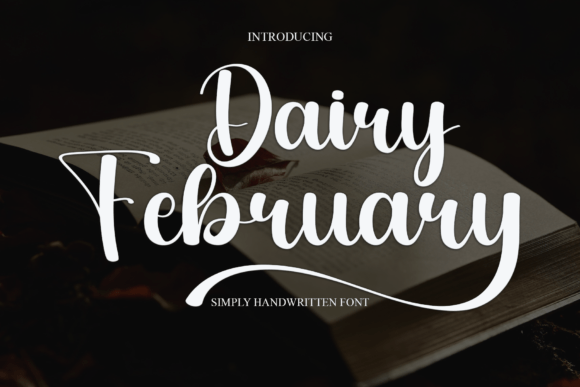
Diary February Font: Elevate Your Designs with a Cool, Simple, and Playful Handwritten Font
Are you looking for a font that can add a touch of personality to your designs? Look no further than Diary February Font. This cool, simple, and playful handwritten font is incredibly versatile and can elevate a wide range of designs to new heights. In this article, we’ll take a closer look at Diary February Font and explore how it can bring your creative ideas to life.
What is Diary February Font?
Diary February Font is a modern, handwritten font that is characterized by its clean lines, simple shapes, and playful feel. It’s a font that is designed to be highly versatile, making it suitable for a wide range of design applications, from branding and advertising to packaging and digital media.
One of the standout features of Diary February Font is its unique blend of simplicity and personality. The font has a straightforward, uncomplicated design that makes it easy to read and understand, yet it also has a distinctive charm that sets it apart from more generic fonts.
Benefits of Using Diary February Font
So why should you choose Diary February Font for your designs? Here are just a few benefits of using this amazing font:
- Versatility: Diary February Font is incredibly versatile, making it suitable for a wide range of design applications.
- Readability: The font is highly readable, even at small sizes, making it perfect for body text and captions.
- Personality: Diary February Font has a unique, playful personality that can add a touch of whimsy to your designs.
Design Applications for Diary February Font
So what types of designs can Diary February Font be used for? The answer is almost any type of design. Here are a few ideas to get you started:
- Branding: Use Diary February Font to create a unique and memorable brand identity.
- Advertising: The font is perfect for use in advertising, from print ads to digital banners.
- Packaging: Diary February Font can add a touch of personality to packaging designs, making them stand out on store shelves.
- Digital media: The font is suitable for use in digital media, including social media graphics, videos, and websites.
Pairing Diary February Font with Other Fonts
One of the best things about Diary February Font is its versatility. It can be paired with a wide range of other fonts to create unique and interesting combinations. Here are a few suggestions:
- Serif fonts: Pair Diary February Font with a serif font, such as Times New Roman or Georgia, to create a classic and elegant look.
- Sans-serif fonts: Pair the font with a sans-serif font, such as Arial or Helvetica, to create a modern and clean look.
- Script fonts: Pair Diary February Font with a script font, such as Lobster or Pacifico, to create a playful and whimsical look.
Tips and Tricks for Using Diary February Font
Here are a few tips and tricks for getting the most out of Diary February Font:
- Experiment with different sizes: Diary February Font can be used at a wide range of sizes, from small captions to large headings.
- Play with color: The font looks great in a wide range of colors, from bright and bold to subtle and muted.
- Add texture: Consider adding texture to your designs to give them a more organic and handmade feel.
In conclusion, Diary February Font is a cool, simple, and playful handwritten font that can elevate a wide range of designs to new heights. Its versatility, readability, and personality make it a great choice for designers looking to add a touch of whimsy to their work. Whether you’re designing a brand identity, creating an advertisement, or developing a digital product, Diary February Font is a great choice.